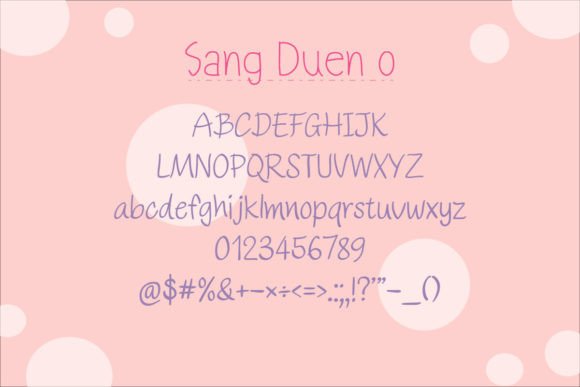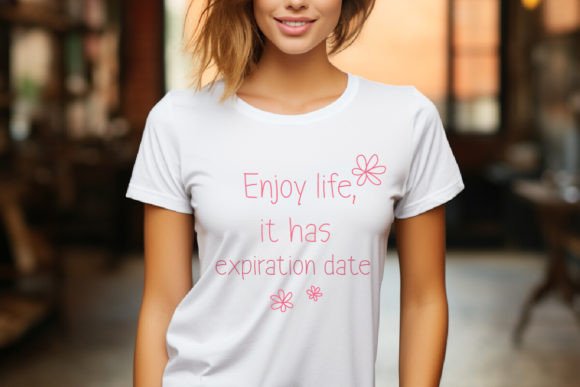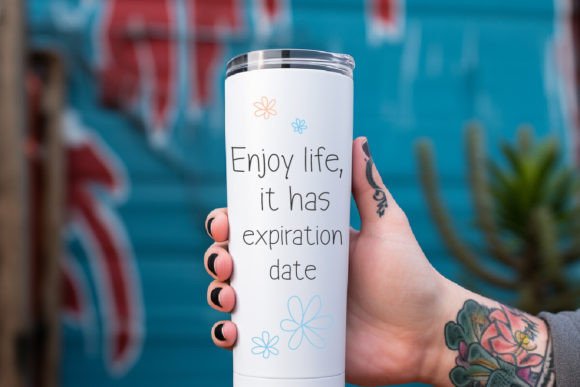
Introduction to Sang Duen O Font
Sang Duen O is designed in a stylish, a cute and modern sans serif font style.
It would be an awesome addition to your fun projects or magical designs .
Key Features of Sang Duen O Font
Why Choose Sang Duen O Font?